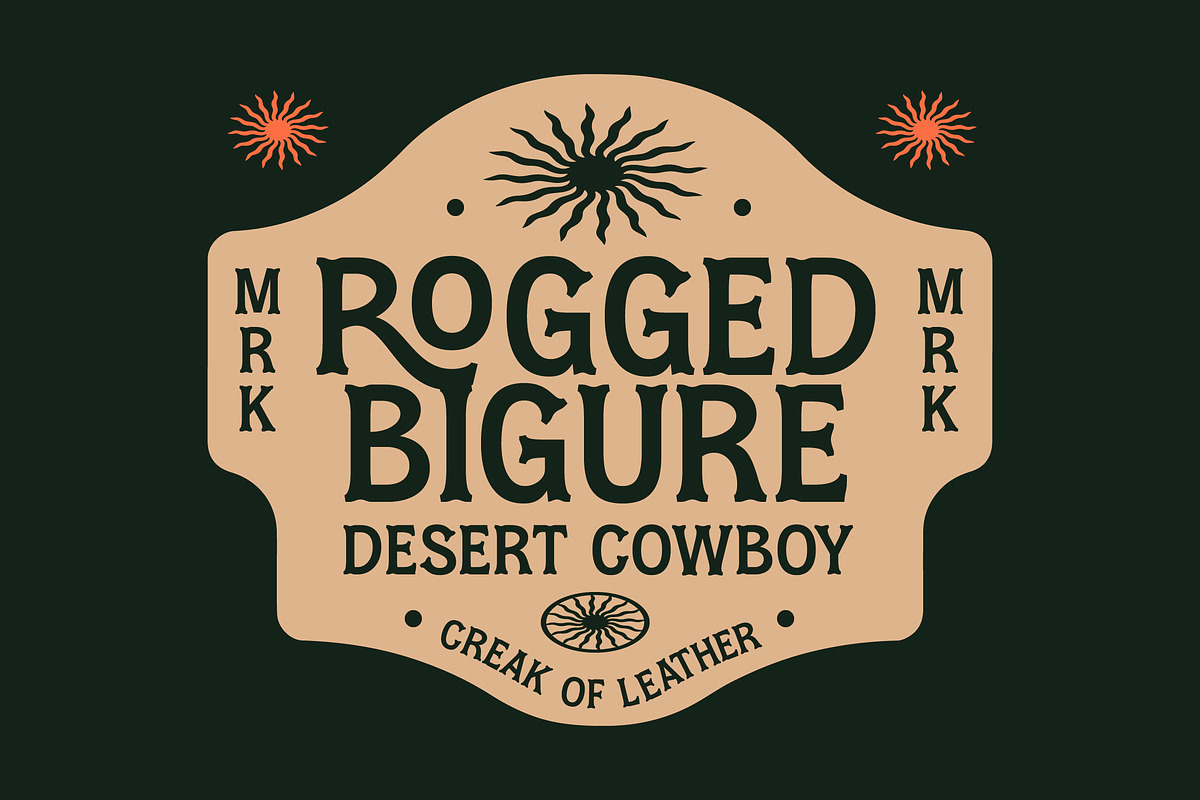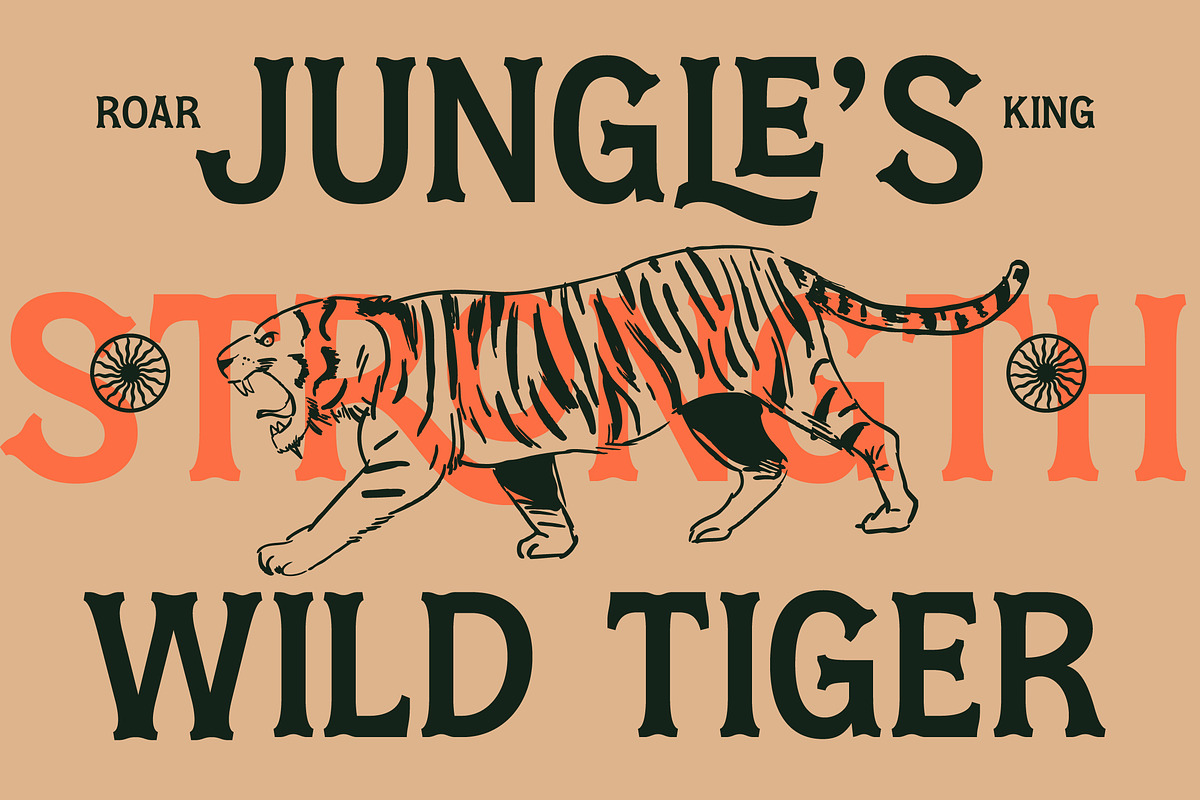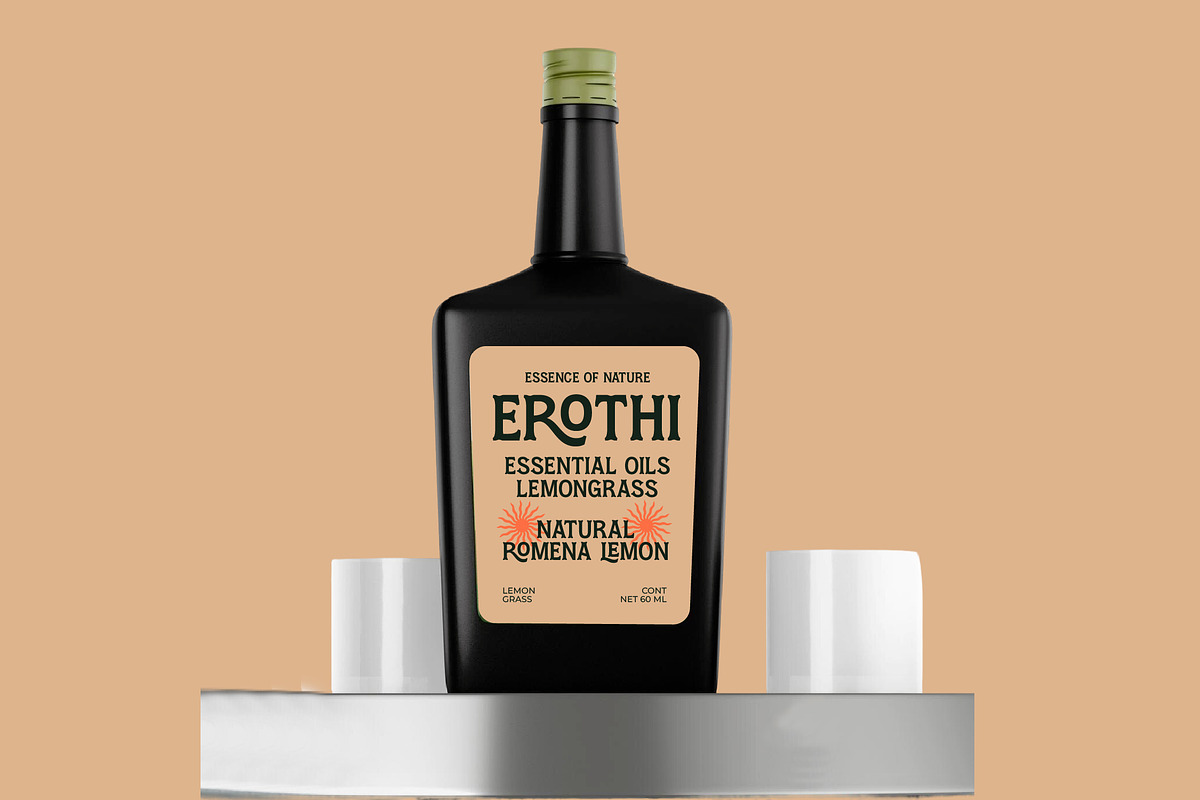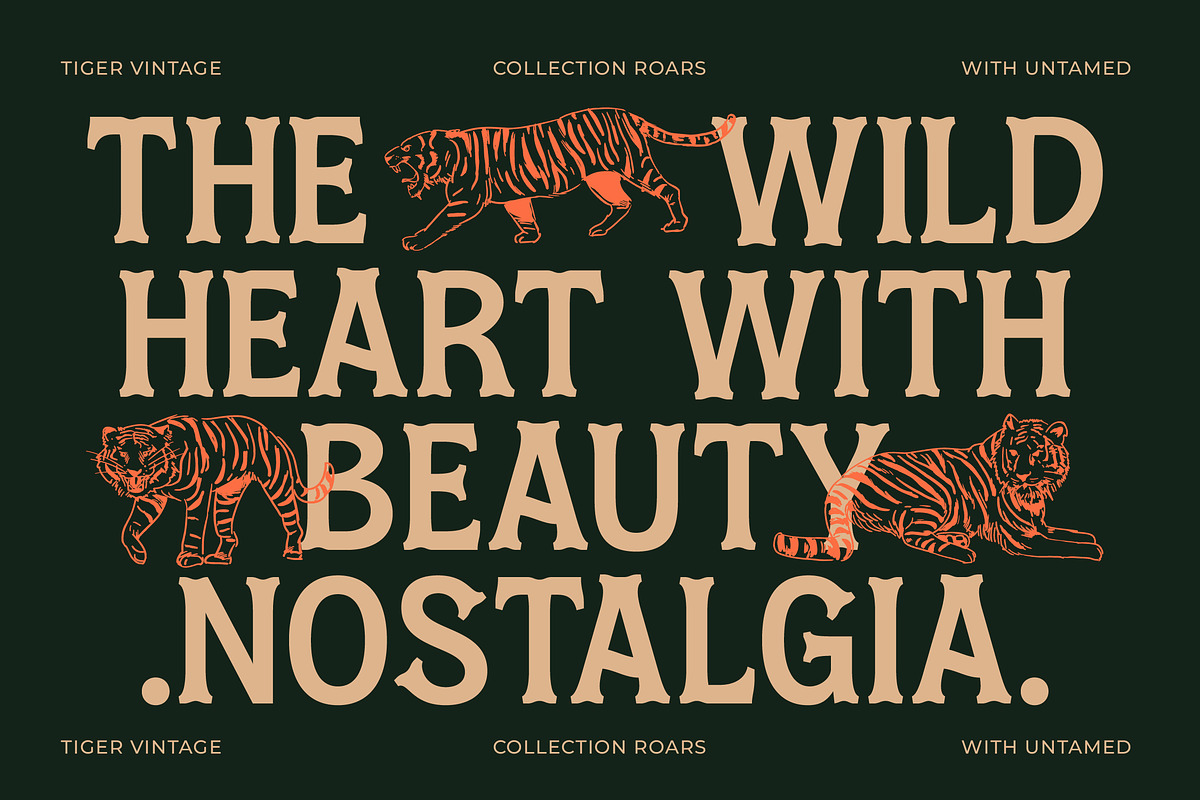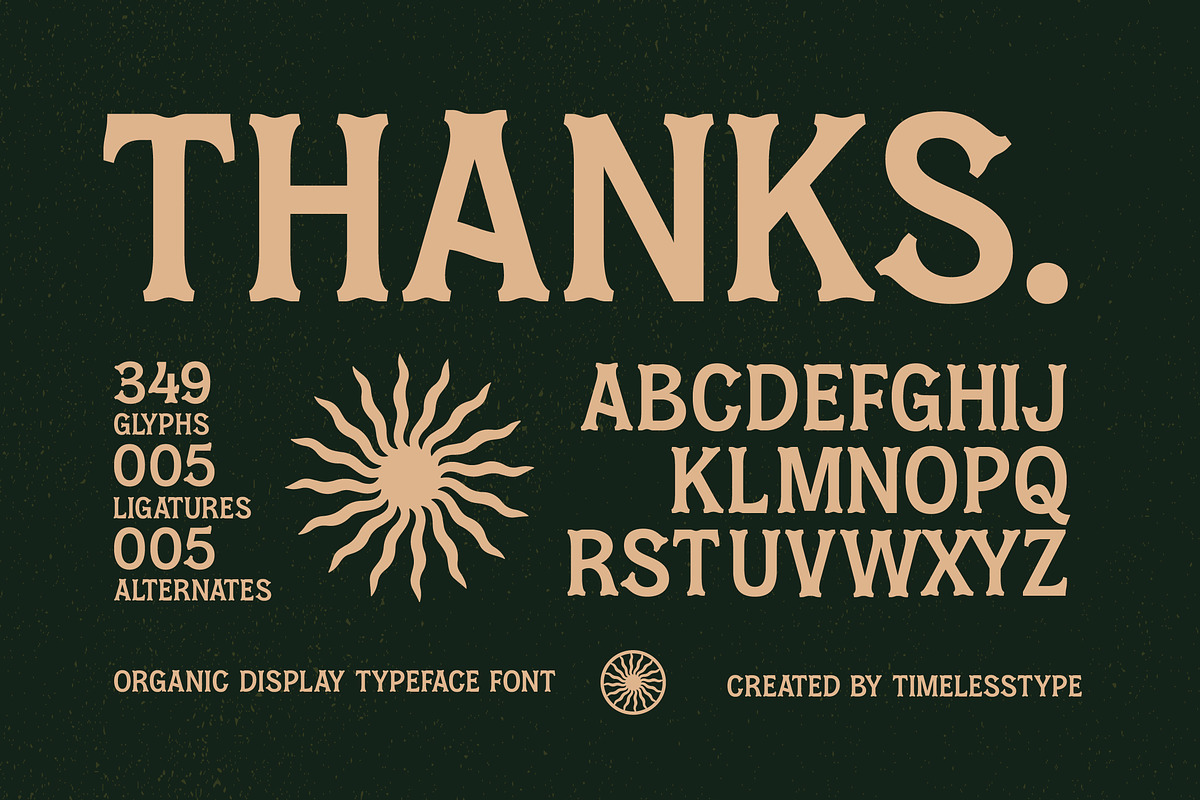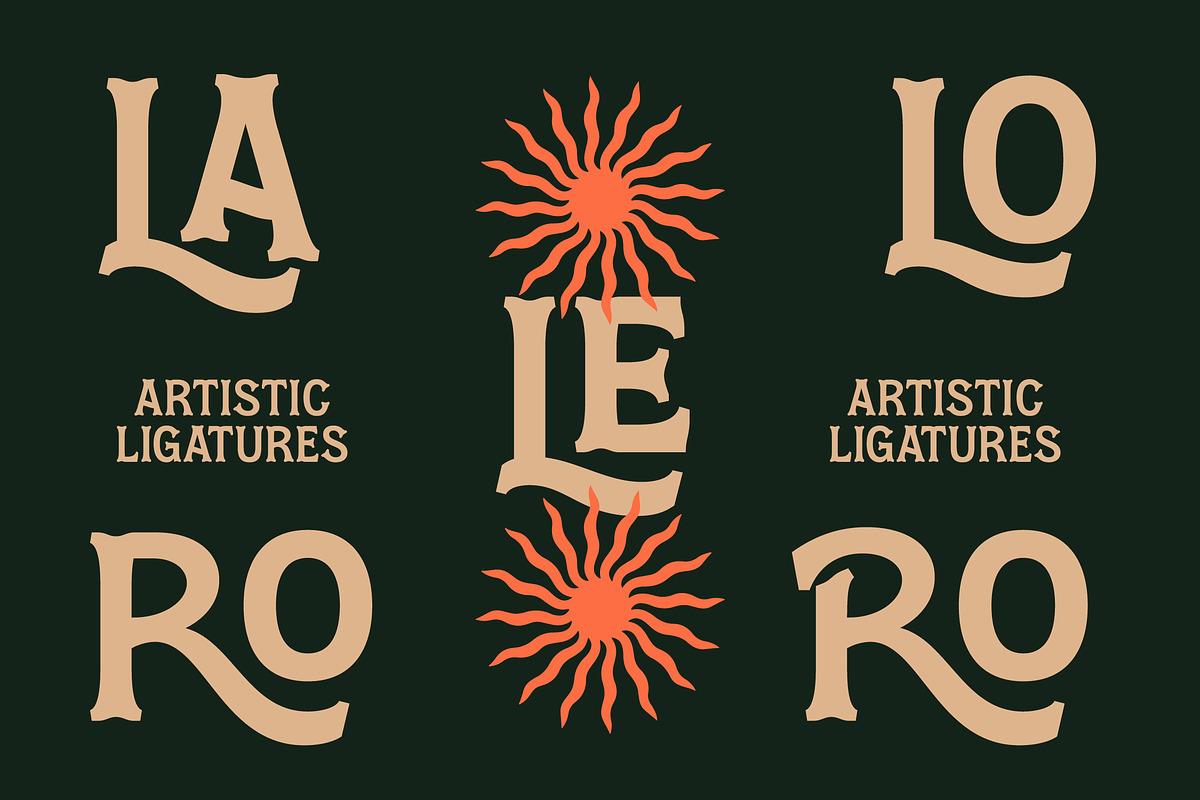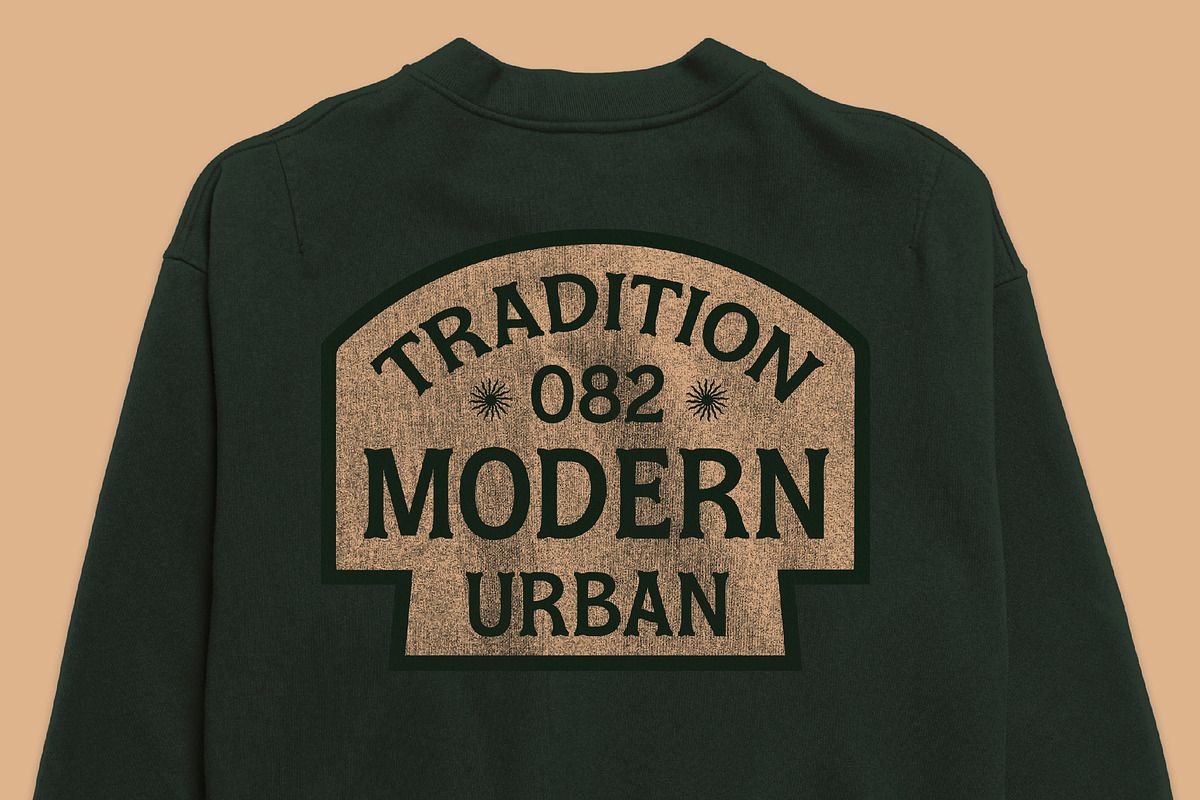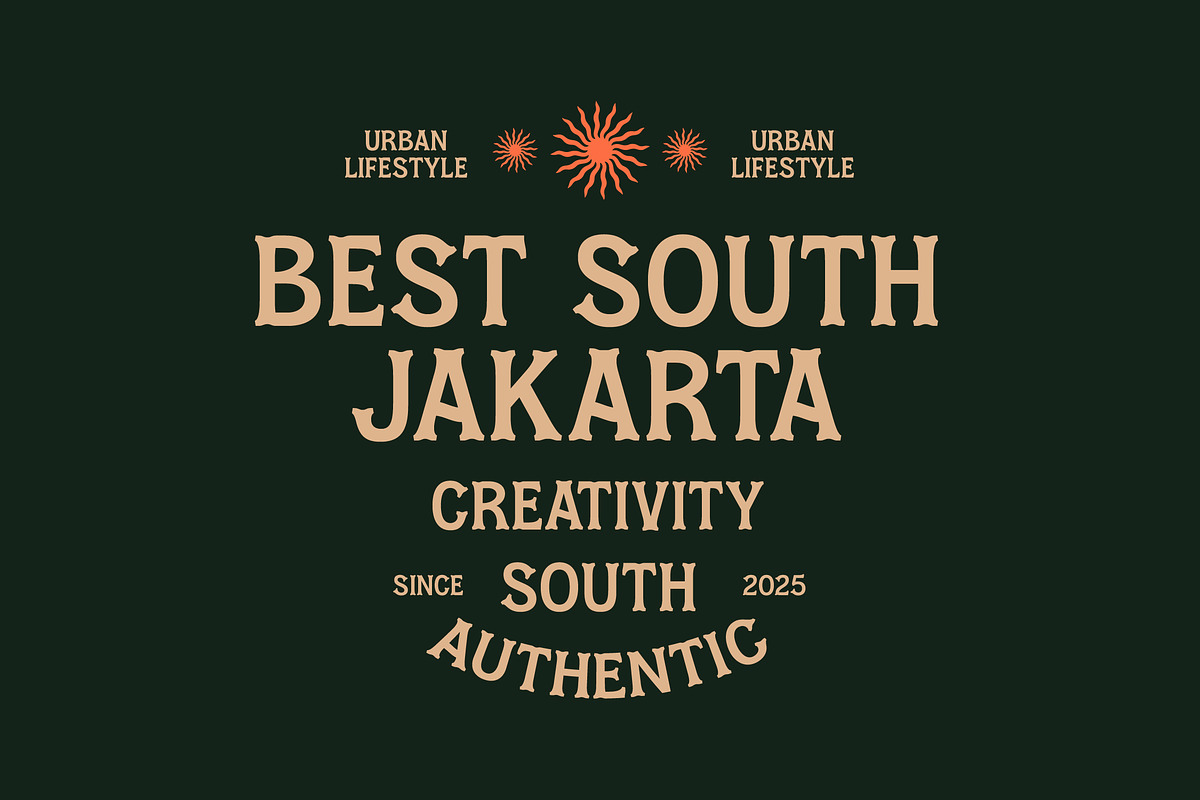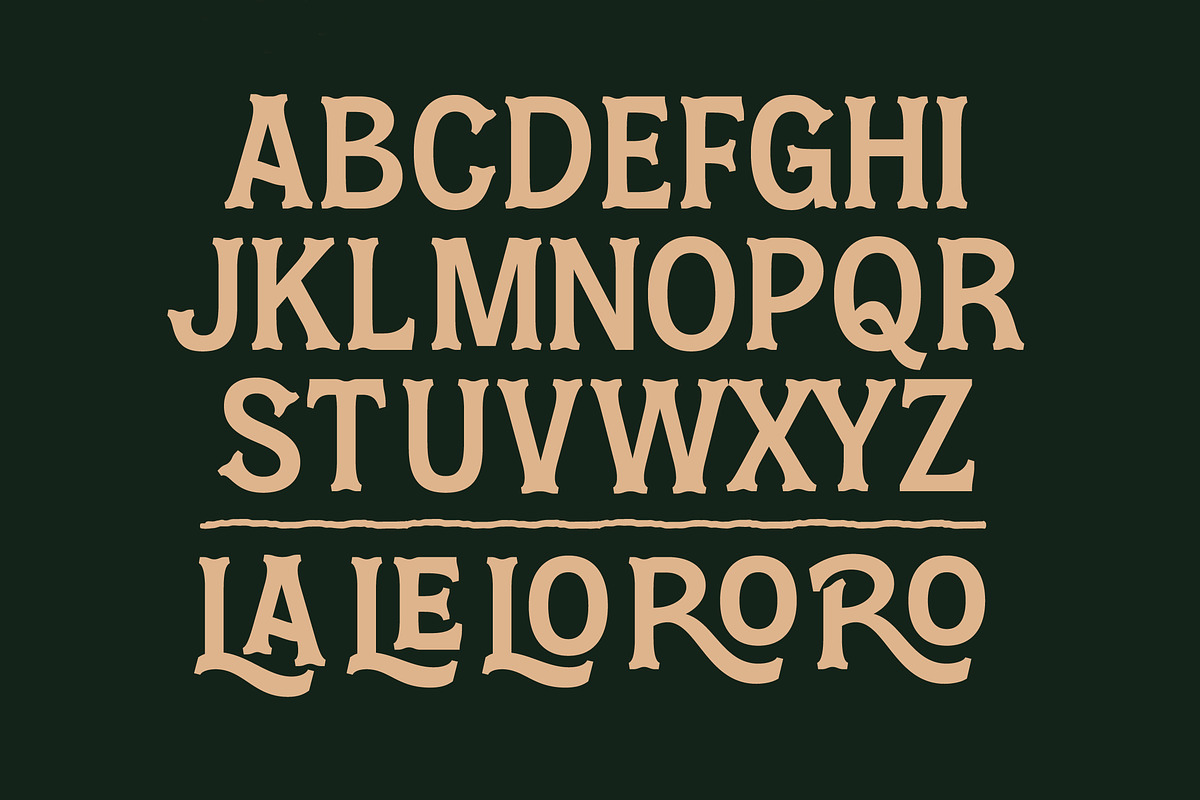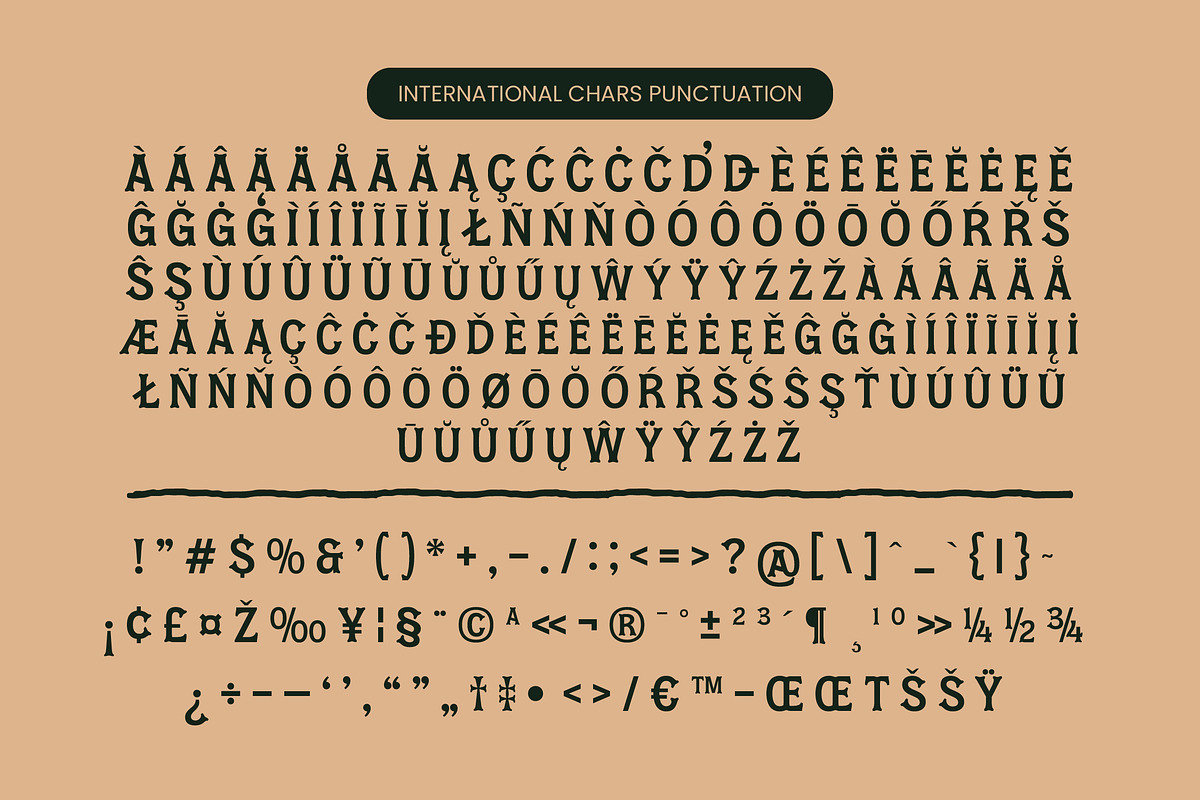
Locatro Western Display Serif
Experience the commanding presence of Locatro, a display typeface that bridges the gap between classic western grit and modern elegance. This font is a statement piece for any designer looking to infuse their work with raw character and editorial grace.
Drawing from the heritage of the frontier and the precision of modern design, this typeface tells a story of visual evolution. It captures the rugged charm of a vintage sunset while providing the clean lines needed for today's sophisticated aesthetic.
Crafted specifically for high-level branding impact, this modern serif display is a powerhouse for visual identity. As a piece of luxury typography, it serves as a stunning high-contrast serif that breathes life into any editorial font collection.
Embracing the current modern serif trend, this typeface is the perfect choice for designers looking for character-driven typography. Its unique silhouettes set it apart from other editorial display fonts, ensuring your headlines remain memorable and distinct.
From conceptual logo design to expansive global branding, this typeface is engineered for excellence in packaging and high-end editorial layouts. Its versatility extends beautifully into the realms of wedding stationery and luxury fashion campaigns.
This font includes a generous selection of ligatures and alternates to give your text a bespoke, handcrafted feel. Featuring elegant swashes and robust multilingual support for international characters, it provides everything you need for professional global design.
- Ligature 005 Alternate 005